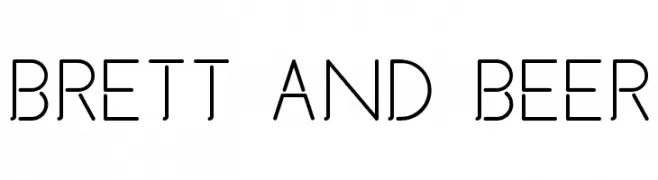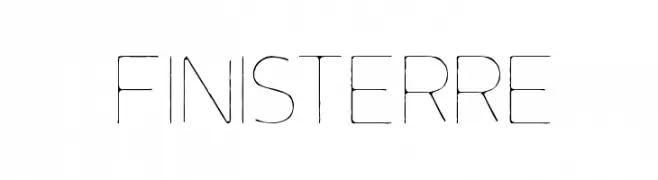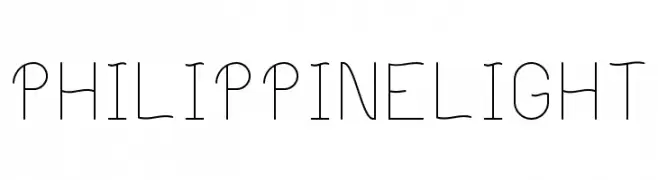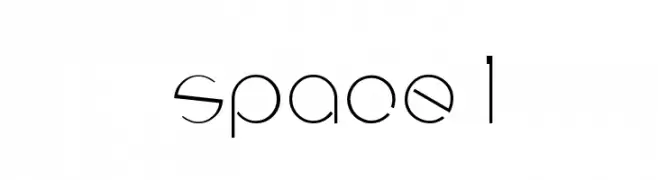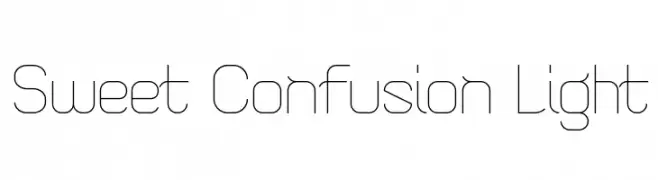
( Studio Typo - www.studiotypo.com )
A minimalist, geometric font with thin, consistent strokes for a modern look.
( The Autumn Rabbit - Louise Ross - www.theautumnrabbit.com )
A thin, elegant font with a modern and minimalistic design.
( Tim Garrett - www.timgarrett.co.uk )
A modern, geometric font with clean lines and a minimalist style.
( Typodermic Fonts - Ray Larabie - www.typodermicfonts.com/ )
A modern, ultra-lightweight font with sleek, geometric lines and a minimalistic style.
( Valentin François - www.valentinfrancois.fr )
A minimalist, modern font with thin lines and geometric structure.
( Vinz - Vincent Wicky-Demaria - www.reticula.fr/ )
A sleek, modern font with thin, geometric lines and a minimalist design.
( Woodcutter - woodcutter Manero - www.woodcutter.es )
A minimalist, geometric font with clean lines and a modern aesthetic.
( Xerographer Fonts - Max Infeld - xerographer.blogspot.com )
A geometric, linear font with thin, angular strokes and a minimalist design.
( Xin Ch )
A modern, geometric font with a sleek and minimalist design.
( Yeah Noah )
A modern, minimalist font with geometric shapes and uniform stroke width.